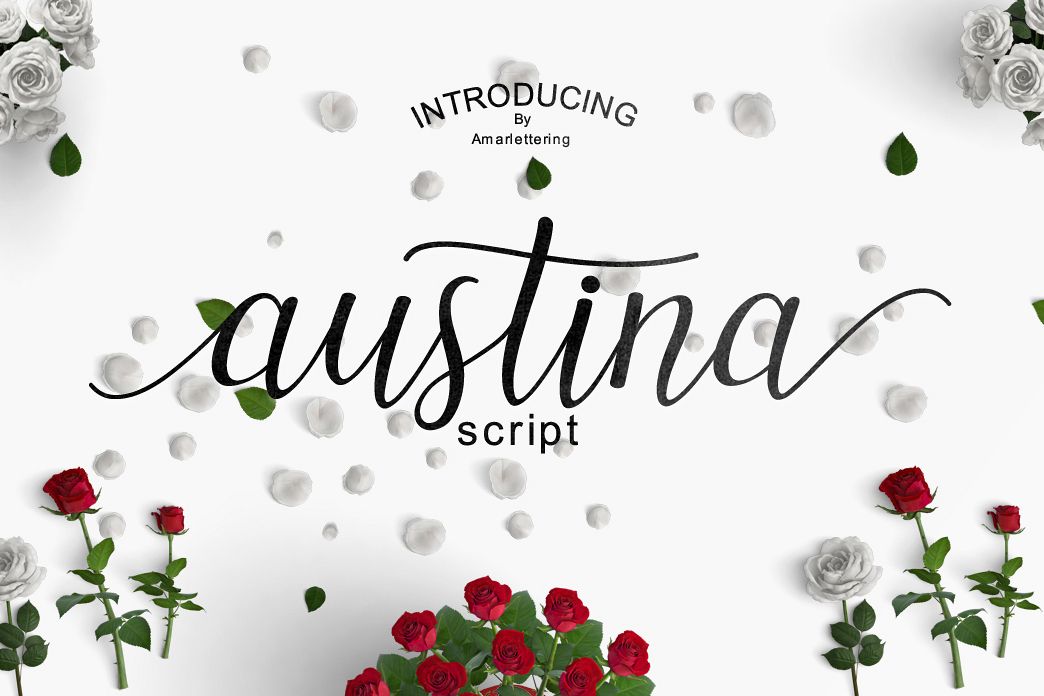
Austina
Introducing
Austina script a new fresh & modern script with a handmade calligraphy style, decorative characters and a dancing baseline! So beautiful on invitation like greeting cards, branding materials, business cards, quotes, posters, and more!!Austina script come with 530 glyphs. The alternative characters were divided into several Open Type features such as Swash, Stylistic Sets, Stylistic Alternates, Contextual Alternates. The Open Type features can be accessed by using Open Type savvy programs such as Adobe Illustrator, Adobe InDesign, Adobe Photoshop Corel Draw X version, And Microsoft Word. And this Font has given PUA unicode (specially coded fonts). so that all the alternate characters can easily be accessed in full by a craftsman or designer.Austina script :Uppercase & Lowercase International Languange & Symbols Support Punctuation & Number PUA Unicode Range Standard Stylistic Alternates Stylistic Set 1-6 Character Variant Contextual. The ZIP file are include the following :Austina script.OTFAustina script.TTFAustina script Web Font (eot, svg, woff, woff2) If you don't have a program that supports OpenType features such as Adobe Illustrator and CorelDraw X Versions, you can access all the alternate glyphs using Font Book (Mac) or Character Map (Windows).